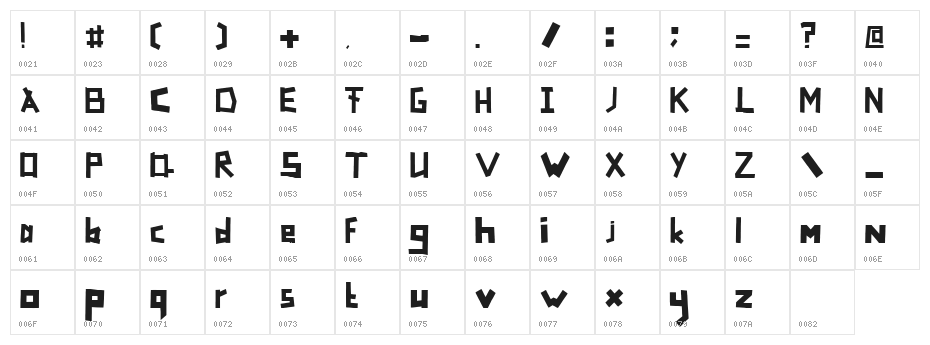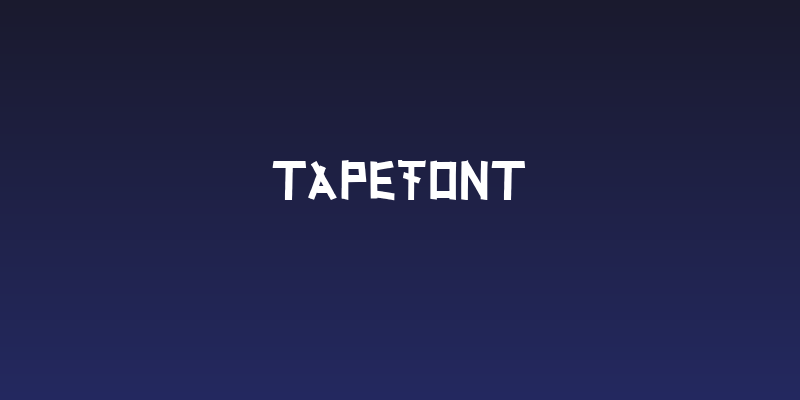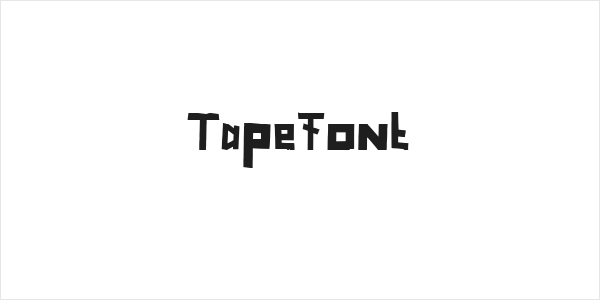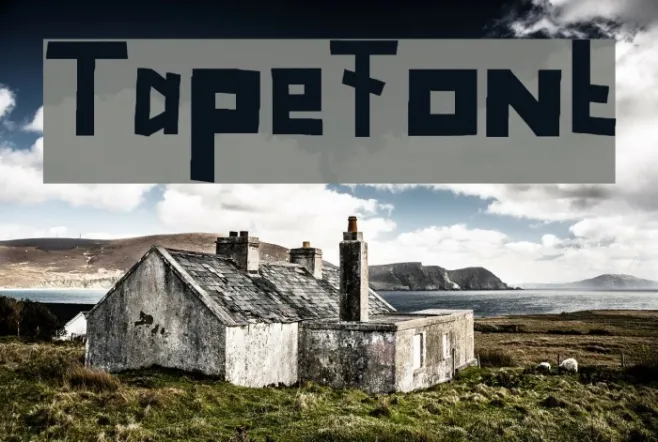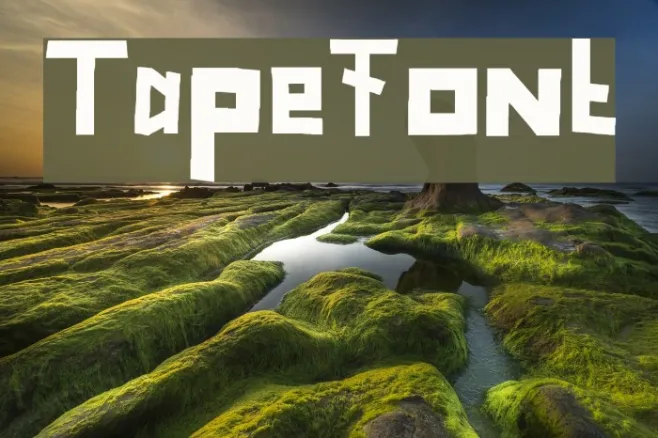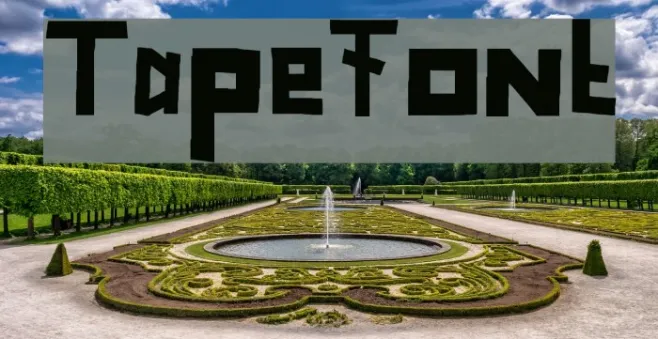
TapeFont Font
TapeFont Description
This font features a bold and angular design, reminiscent of cut-out tape or stencil work. Each character is crafted with sharp edges and varying thickness, giving it a rugged and industrial feel. The uppercase and lowercase letters maintain a consistent style, with a slightly irregular and hand-crafted appearance. The numerals and special characters follow the same aesthetic, ensuring a cohesive look across all glyphs. This font's unique style makes it stand out, perfect for projects that require a bold and unconventional typeface.
| Overall Style | Modern, Industrial |
| Proposed Projects | Ideal for posters, album covers, street art designs, and branding that requires a bold statement. |